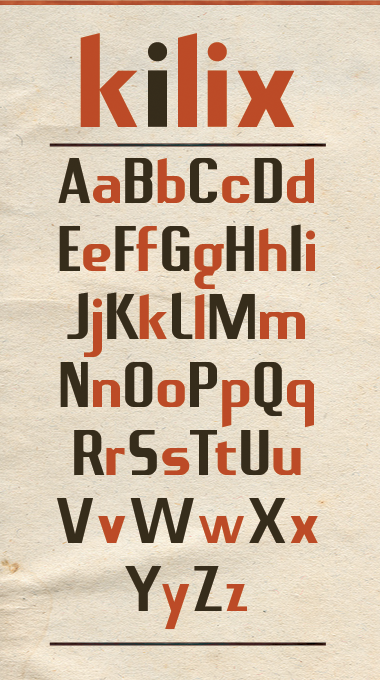
Byootiful! Haha. 9/10.
I love this. Totally inventive new use of composites, composite stacking and advanced filters. There are some weight issues (no surprise for such a radically small grid :), and then there are some stand out characters like your very smart r. How about giving stroke contrast to v and x (perhaps capital A, as well)?
yes you point it very well... with a small gris sometime you're f*** between desing itself of the glyph, the kerning and the his size weight comparing to rest of the alphabet... sometime I wish to change it as simple as vector software can do ;) Just like my diatrics "grave" and "acute" I was unable to put it more in the midel
I don't have the feeling of creating new use of composite I always have the feeling that everything is already created ...can you tell what you found unusual in this font? :) please
you're right about stroke contrast i'll do it later
Great font! It's like it's not modular at all...
Good job! Don't worry, the freshness dwells within you, and it's refreshing to see these letters. The mismatch with the accents you fix it, you'll see, mon ami. It looks like a classic font. You can try (if you want) make the LC a little bit higher (¿1 square, maybe?).
@farside thank you I try to be less modular
I don't understand what you mean by LC ?
It was a mistake (I have to sleep now), I wanted to write lower case (LC). See you tomorrooooowzzzzzzzzzzzzz...